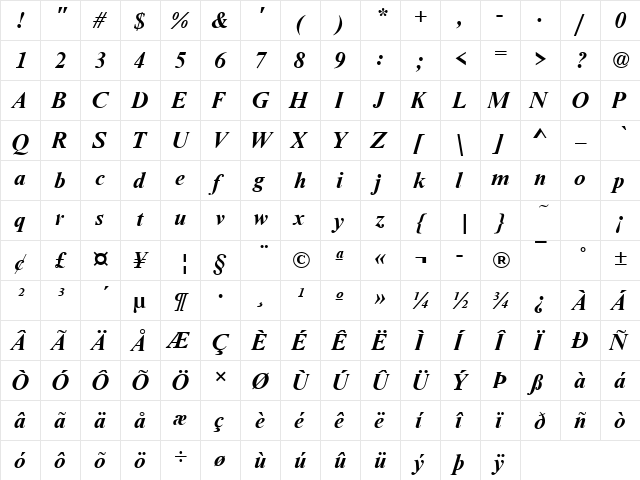
NimbusRomNo9T Bold Italic Font Preview
Design Context for NimbusRomNo9T Typeface
NimbusRomNo9T offers clean, dependable letterforms without strong stylistic allegiance, making it a practical choice for designers who need flexibility. The dynamic lean of this cut emphasises speed and emphasis in any layout. The heavy weight commands attention and anchors typographic hierarchies.
Pro Tip: Try NimbusRomNo9T for annotation and caption copy alongside an upright companion — the contrast in angle creates a dynamic but ordered typographic system.